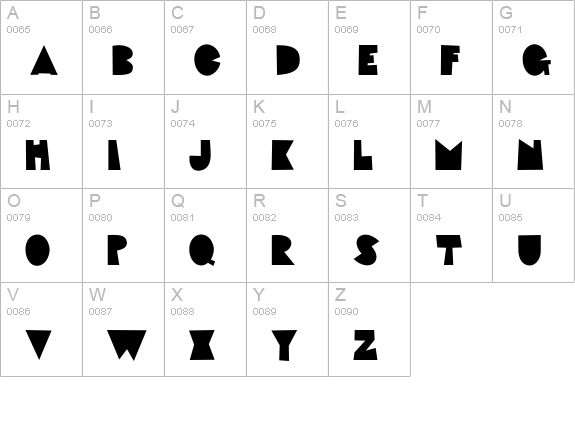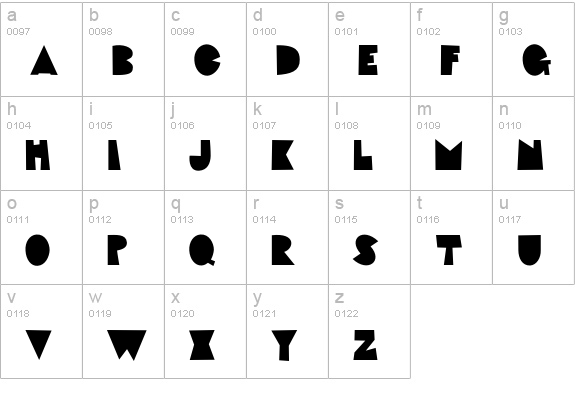
Fat Cat Font Details
Introducing the Fat Cat font, a playful and charming typeface perfect for adding a touch of whimsy to your designs. With its bold and rounded letterforms, Fat Cat exudes a sense of friendliness and warmth, making it ideal for a wide range of projects, from invitations to branding. This unique font is available for free download at FontsMarket.com, where you can easily access and incorporate it into your creative endeavors. Embrace the quirky and endearing appeal of Fat Cat in your next project and watch as it brings a sense of fun and character to your design work. Let your imagination run wild with this delightful font that is sure to captivate and delight audiences of all ages.